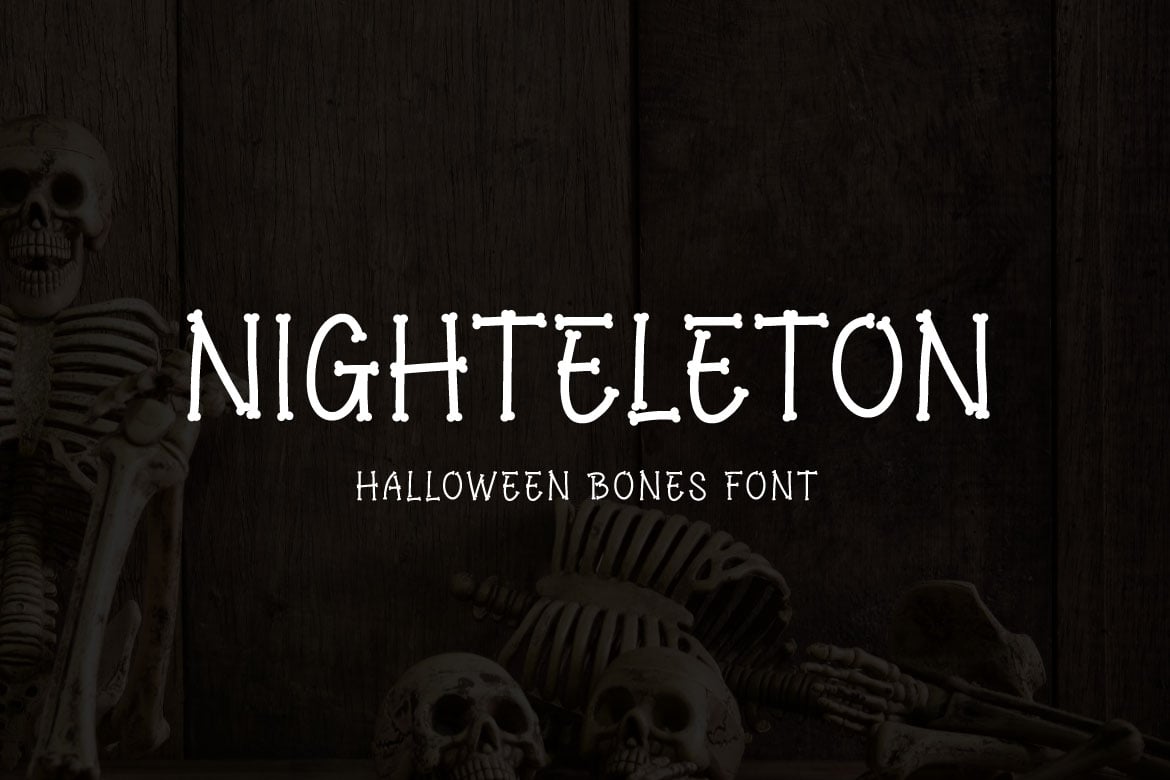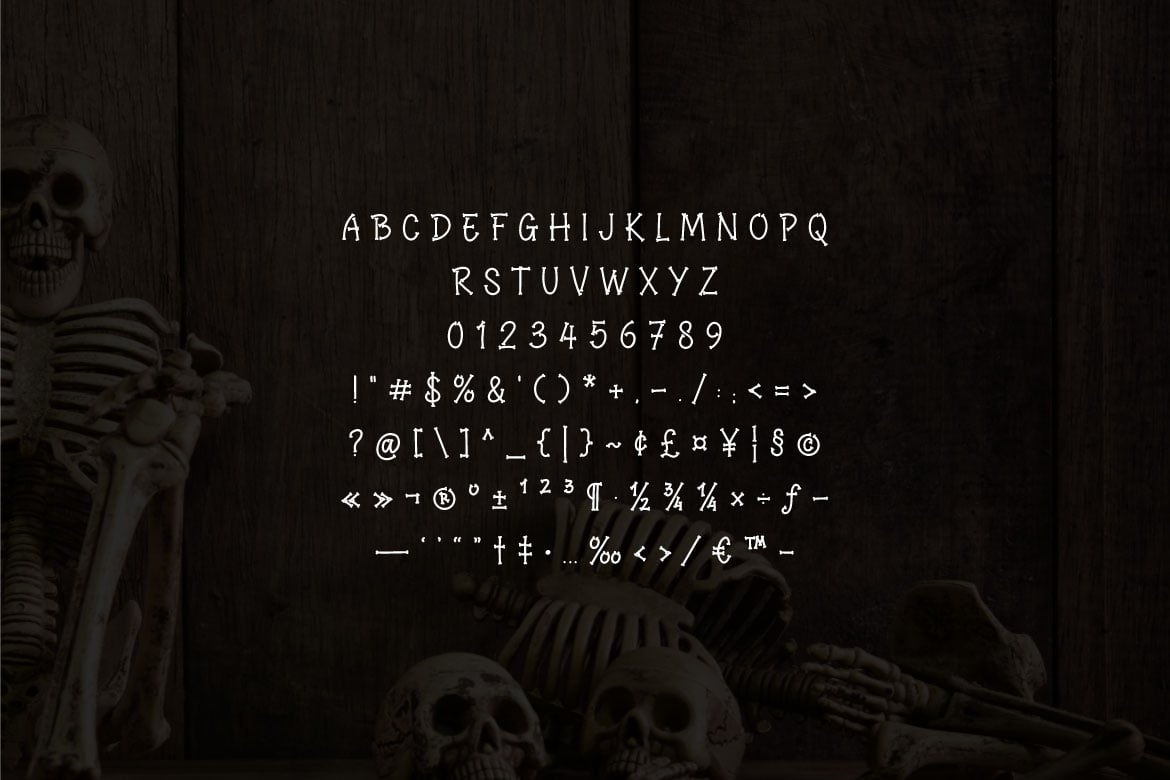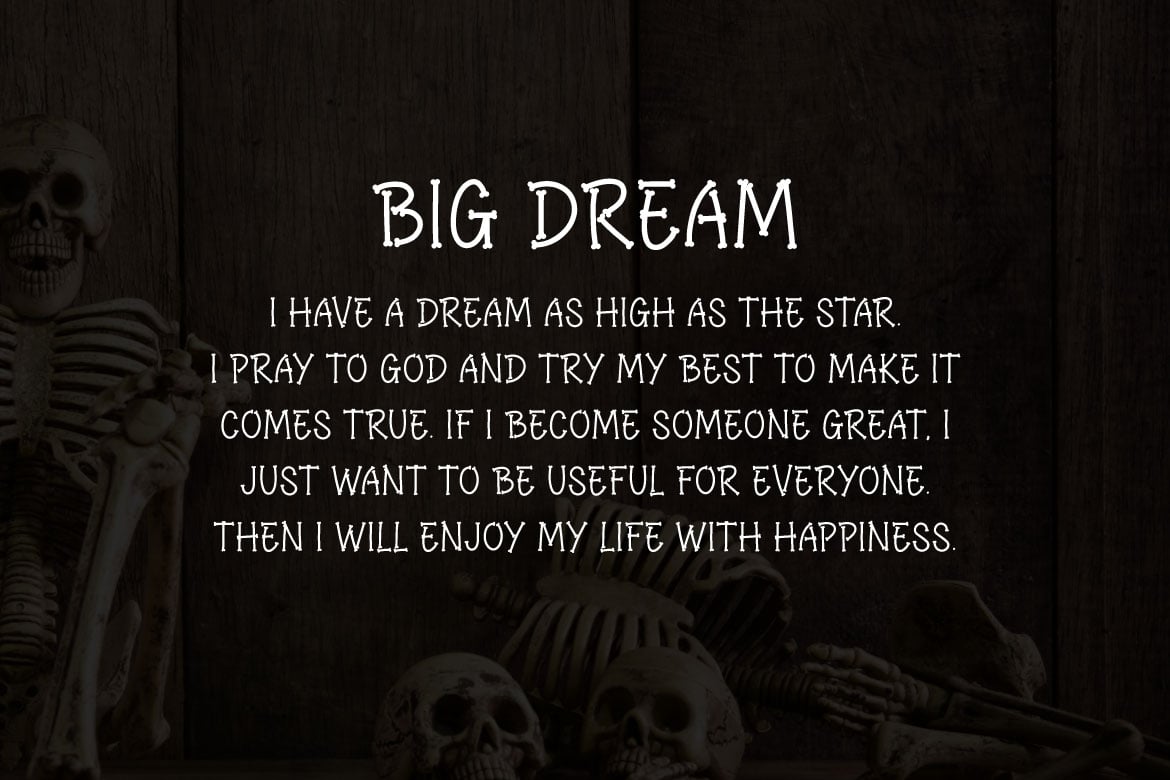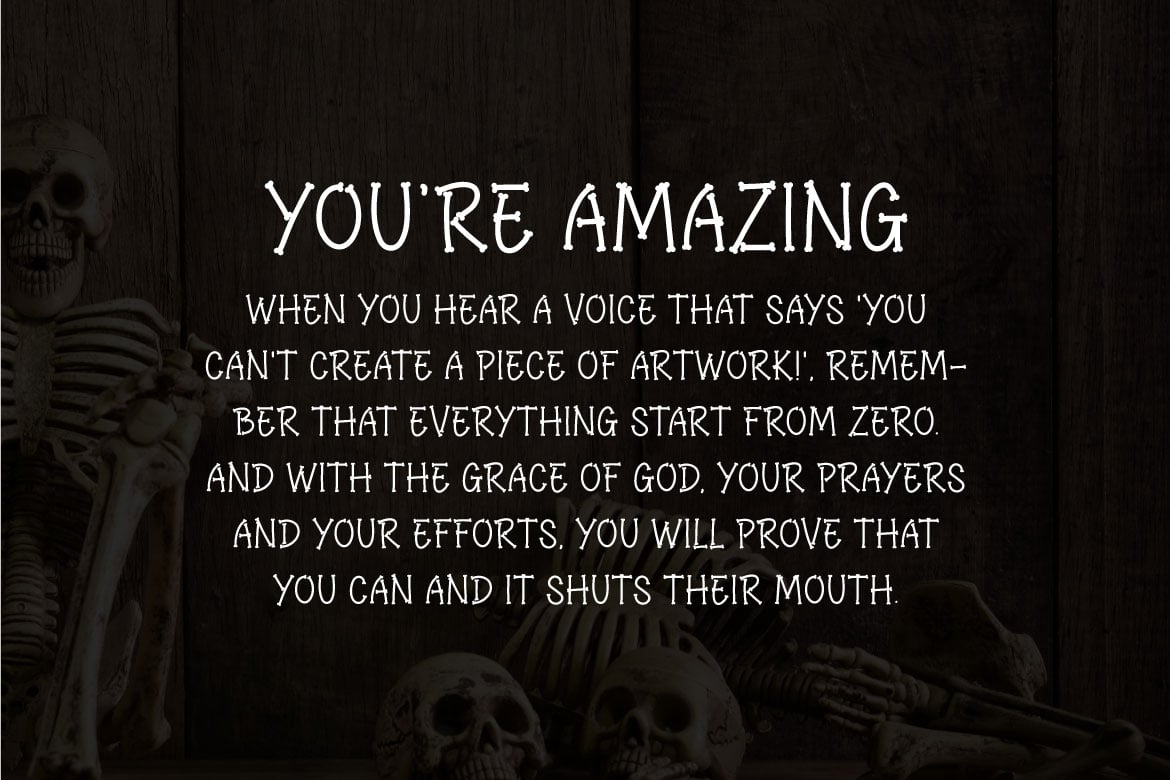
Nighteleton – Halloween Font
Hello! Nighteleton is a halloween display font.
Nighteleton can be used in any works such as comic book, poster, school, flyer, book title, advertisement, social media content, logo and many more.